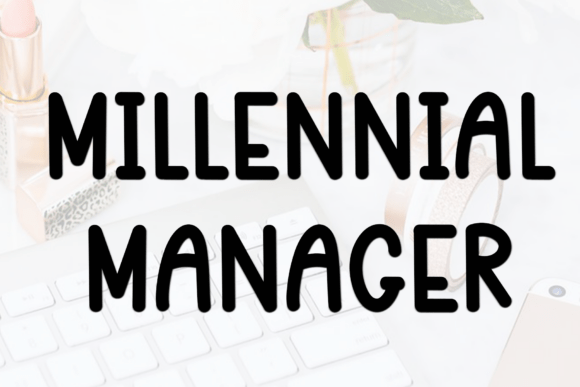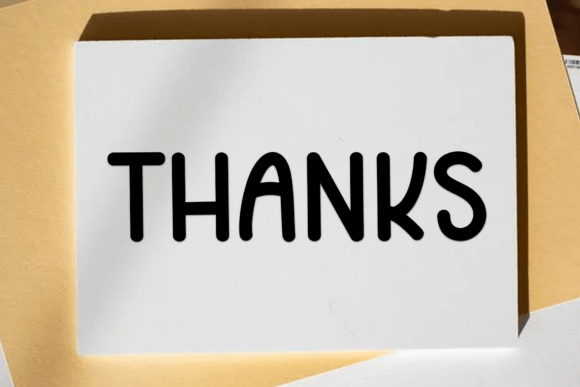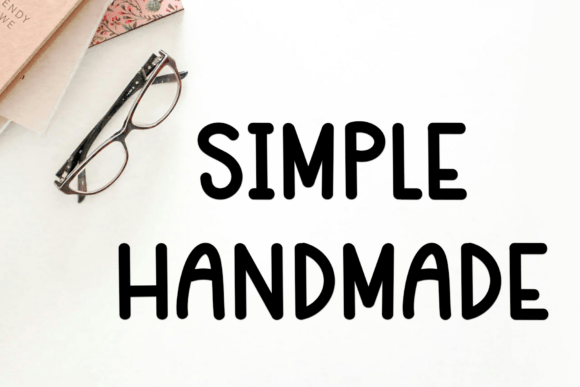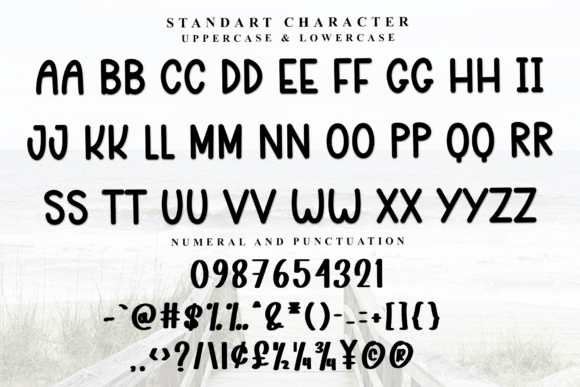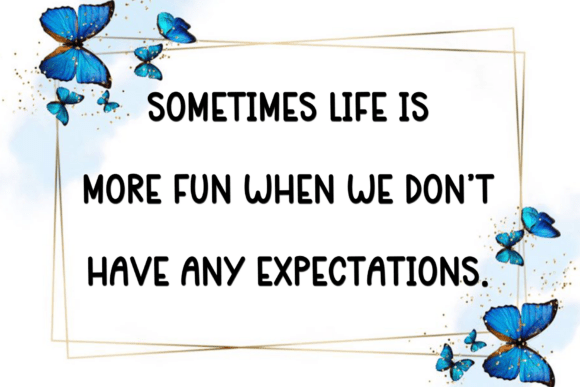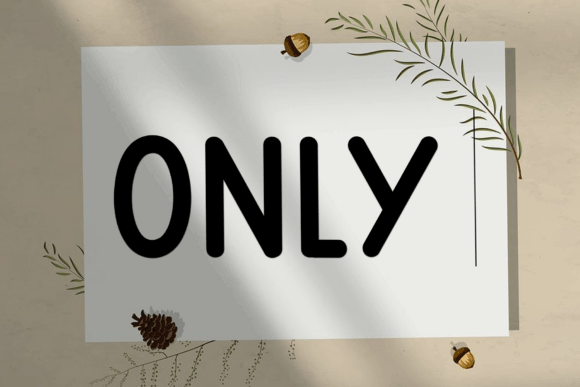
Ginger Bread Font: A Festive and Merry Typeface for the Holiday Season
The holiday season is upon us, and with it comes the need for festive and fun designs that capture the spirit of the season. If you’re a designer or crafter looking for a typeface that embodies the magic of the holidays, look no further than the Ginger Bread Font. This delightful font is perfect for adding a touch of enchantment to your designs, and in this article, we’ll explore its features and benefits.
Ginger Bread Font is a decorative typeface that is specifically designed to evoke the feeling of the holiday season. Its whimsical flair and decorative elements make it perfect for use in holiday-themed projects, such as greeting cards, gift tags, and festive posters. The font’s playful and cheerful design is sure to bring a smile to anyone’s face, making it an excellent choice for designers and crafters who want to add a touch of fun and personality to their work.
Whether you’re designing greeting cards, gift tags, or holiday-themed posters, the Ginger Bread Font is the perfect choice. Its festive and merry design is sure to add a touch of enchantment to your projects, making them stand out from the crowd. The font’s decorative elements and whimsical flair make it perfect for use in a variety of holiday-themed projects, including:
- Greeting cards: Add a personal touch to your holiday greeting cards with the Ginger Bread Font.
- Gift tags: Make your gifts extra special with custom gift tags featuring the Ginger Bread Font.
- Holiday posters: Create eye-catching holiday posters with the Ginger Bread Font.
- Social media graphics: Add a touch of festive fun to your social media graphics with the Ginger Bread Font.
One of the best features of the Ginger Bread Font is that it is PUA (Private Use Area) encoded. This means that you can access all of the amazing glyphs and ligatures with ease, making it simple to add decorative elements to your designs. With the Ginger Bread Font, you can:
- Access a wide range of glyphs and ligatures.
- Easily add decorative elements to your designs.
- Create unique and eye-catching typography.
Why Choose the Ginger Bread Font?
So why choose the Ginger Bread Font for your holiday designs? Here are just a few reasons:
- Festive and merry design: The Ginger Bread Font is specifically designed to evoke the feeling of the holiday season.
- Decorative elements: The font features decorative elements and whimsical flair, making it perfect for holiday-themed projects.
- PUA encoded: The font is PUA encoded, making it easy to access a wide range of glyphs and ligatures.
- Easy to use: The font is simple to use and can be easily integrated into your designs.
In conclusion, the Ginger Bread Font is a must-have for any designer or crafter looking to add a touch of festive fun to their holiday designs. Its unique and playful design makes it perfect for use in a variety of holiday-themed projects, and its PUA encoding makes it easy to access a wide range of glyphs and ligatures. So if you want to make your holiday designs stand out from the crowd, be sure to check out the Ginger Bread Font.